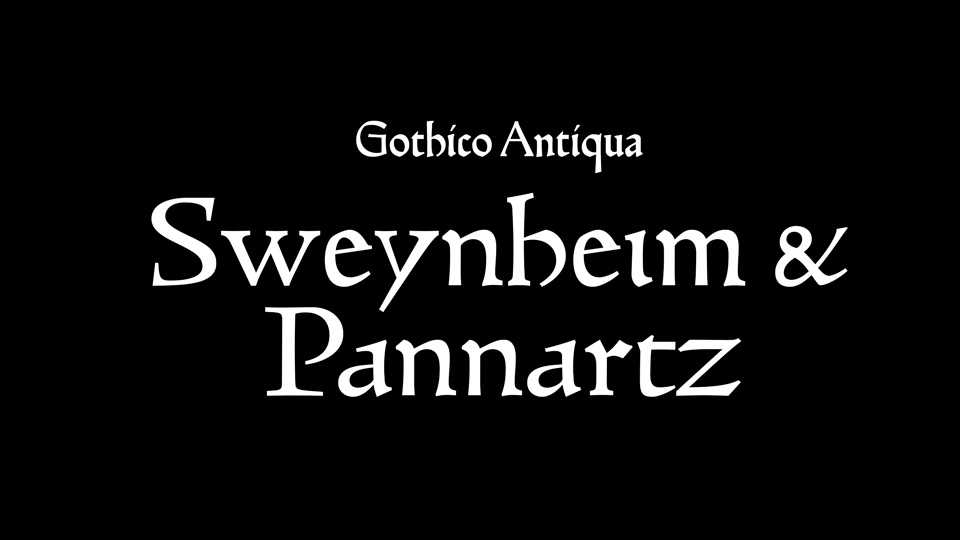
Download Sweynheim & Pannartz typeface, Proto-Roman cut in Subiaco by Konrad Sweynheim & Arnold Pannartz, for an edition of Donatus in 1465 (no longer preserved) and used until 1467 in four editions in total.